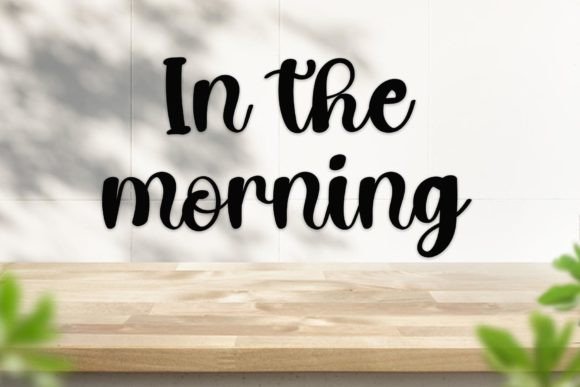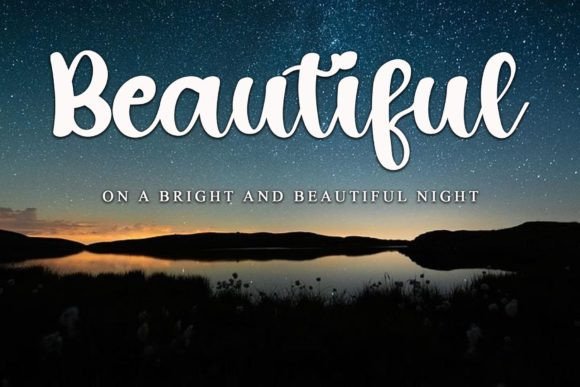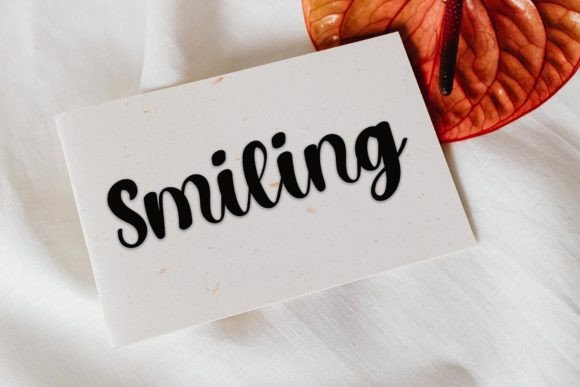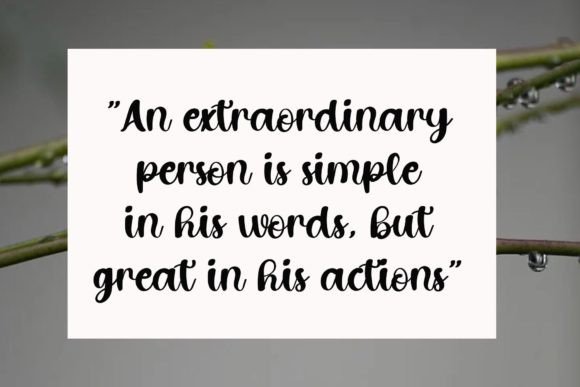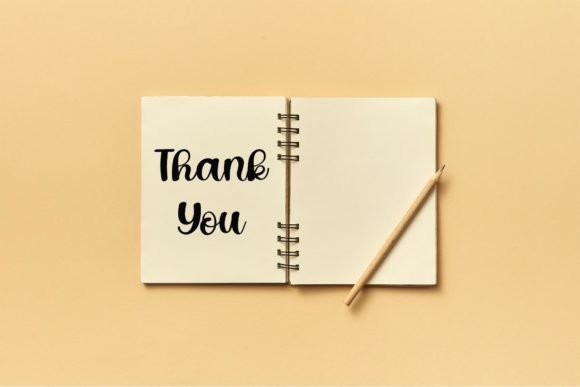
Hearst Font: Elevate Your Designs with Elegance and Timeless Style
Are you on the hunt for a font that exudes elegance, sophistication, and a touch of timeless charm? Look no further than the Hearst Font, a stunning handwritten typeface that is sure to capture your heart. With its incredibly distinct and beautiful style, Hearst is the perfect addition to your design arsenal, allowing you to create breathtaking projects that stand out from the crowd.
The Essence of Hearst Font
Hearst is a neat and beautiful handwritten font, characterized by an elegant touch that sets it apart from other typefaces. Its unique blend of classic and modern elements makes it an excellent choice for designers and crafters seeking to add a touch of sophistication to their work. Whether you’re creating a logo, branding materials, or digital content, Hearst Font is sure to impress.
Key Features of Hearst Font
- Elegant and Refined: Hearst Font boasts an undeniable air of elegance, making it perfect for projects that demand a high level of sophistication.
- Timeless Style: With its classic undertones, Hearst Font remains relevant and stylish, ensuring your designs won’t go out of fashion anytime soon.
- Distinct and Readable: The font’s unique character set and exceptional legibility make it an excellent choice for body text, headings, and titles.
- Versatile: Hearst Font can be used across various design projects, from digital content and branding to print materials and craft projects.
Hearst Font is a versatile typeface that caters to the needs of both designers and crafters. Whether you’re working on a commercial project or a personal craft, this font is sure to inspire your creativity. Here are a few ways you can utilize Hearst Font:
- Branding and Logos: Create stunning logos, business cards, and branding materials that showcase your brand’s personality and style.
- Digital Content: Elevate your blog posts, social media graphics, and website content with Hearst Font’s elegant and refined appearance.
- Print Materials: Use Hearst Font to create beautiful print materials, such as brochures, flyers, and posters, that demand attention.
- Craft Projects: Add a personal touch to your craft projects, such as handmade cards, invitations, and scrapbooking, with Hearst Font’s unique and charming style.
Tips for Using Hearst Font Effectively
To get the most out of Hearst Font, consider the following tips:
- Pair with Complementary Fonts: Combine Hearst Font with complementary fonts to create visual interest and hierarchy in your designs.
- Experiment with Colors: Play with different color schemes to find the perfect match for your Hearst Font designs.
- Pay Attention to Spacing: Ensure adequate spacing between letters and lines to maintain readability and visual flow.
In conclusion, Hearst Font is a beautiful and elegant handwritten typeface that is sure to capture your heart. With its timeless style, distinct character, and versatility, it’s an excellent addition to any designer’s or crafter’s toolkit. Whether you’re working on a commercial project or a personal craft, Hearst Font is the perfect choice for creating spectacular designs that stand out from the crowd. So why wait? Fall in love with Hearst Font and elevate your designs to new heights!